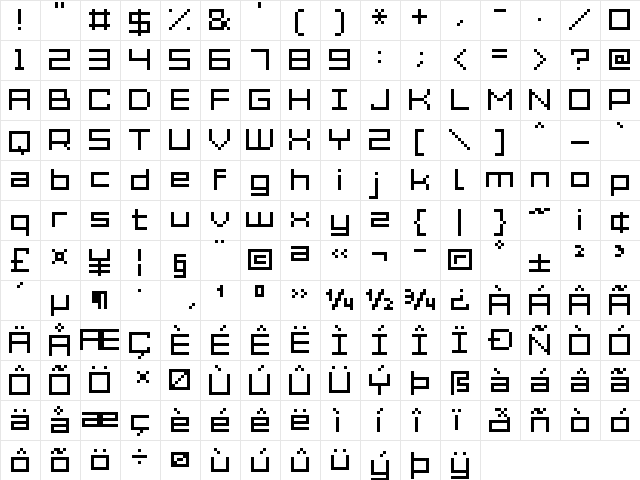
Grixel Acme 7 Wide Xtnd Regular
Design Context for Grixel Acme 7 Wide Xtnd Typeface
Grixel Acme 7 Wide Xtnd is a composed and adaptable typeface that performs quietly and consistently across a wide range of design contexts.